Top 39 Perfect Sports Fonts (For Logos, Jerseys, and More)
Elevate your game with the ultimate collection of 39 sports fonts that will transform your logos and jerseys into standout statements!
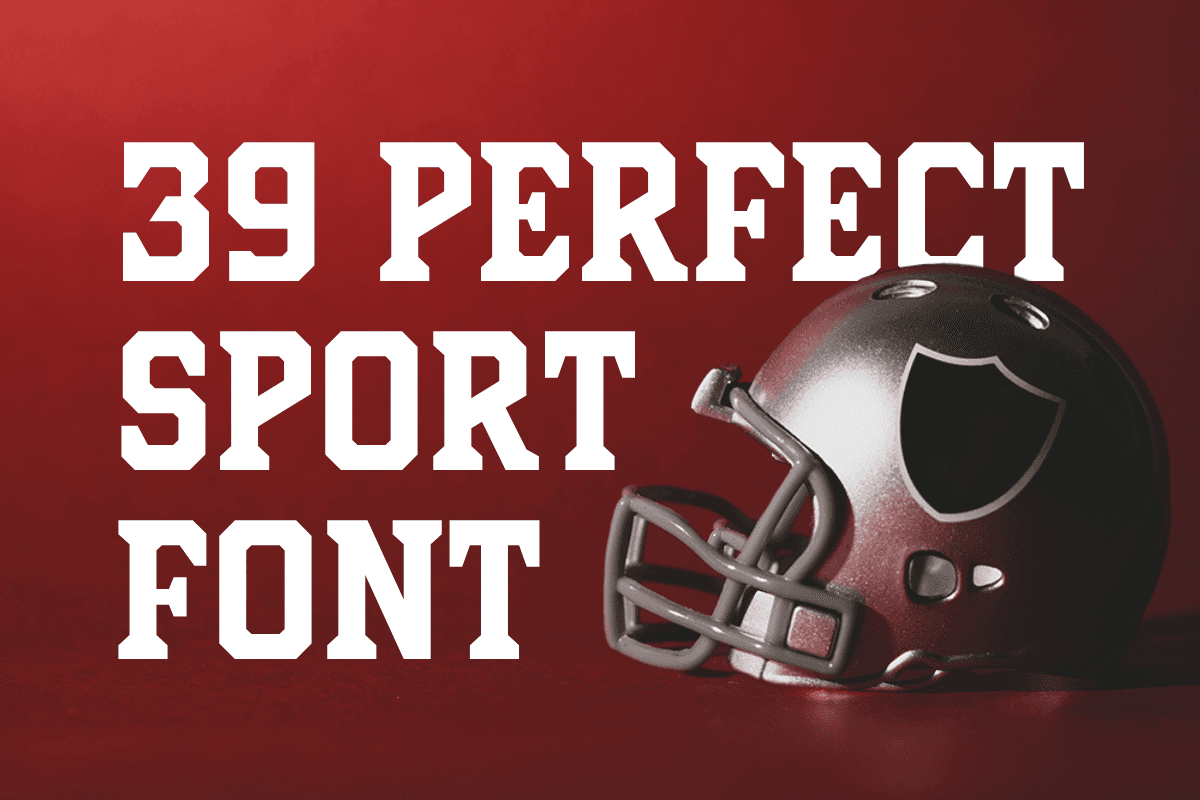
Choosing the perfect sports font is a crucial task. It's not just about aesthetics.
The right font can enhance a team's identity. It can boost fan engagement and even influence merchandise sales.
But how do you choose the perfect sports font?
This guide will help you navigate the world of sports typography. We'll delve into the psychology behind sports fonts. We'll explore their characteristics and their role in branding.
We'll also discuss popular lettering styles. From bold and dynamic to minimalist and sleek, we'll cover them all.
Technical considerations are also important. We'll talk about legibility, scalability, and even legal aspects of font usage.
Choosing the right font involves balancing tradition and modernity. It requires considering the audience and cultural sensitivities. We'll guide you through these considerations.
We'll also discuss the benefits of custom typefaces. We'll provide tips on working with type designers to create a unique font for your team.
Once you've chosen your font, implementing it is the next step. We'll discuss how to maintain consistency across branding materials and how to test your font's effectiveness.
Finally, we'll review some notable sports fonts. We'll also provide resources on where to find and license these fonts.
The future of sports lettering design is exciting. With the rise of technology and innovation, the possibilities are endless.
So, whether you're a sports team manager, a graphic designer, or just a sports enthusiast, this guide is for you. Let's dive into the world of sports lettering fonts.
39 Best Sport Fonts
Avega Sport Font (TTF, OTF, WOFF)
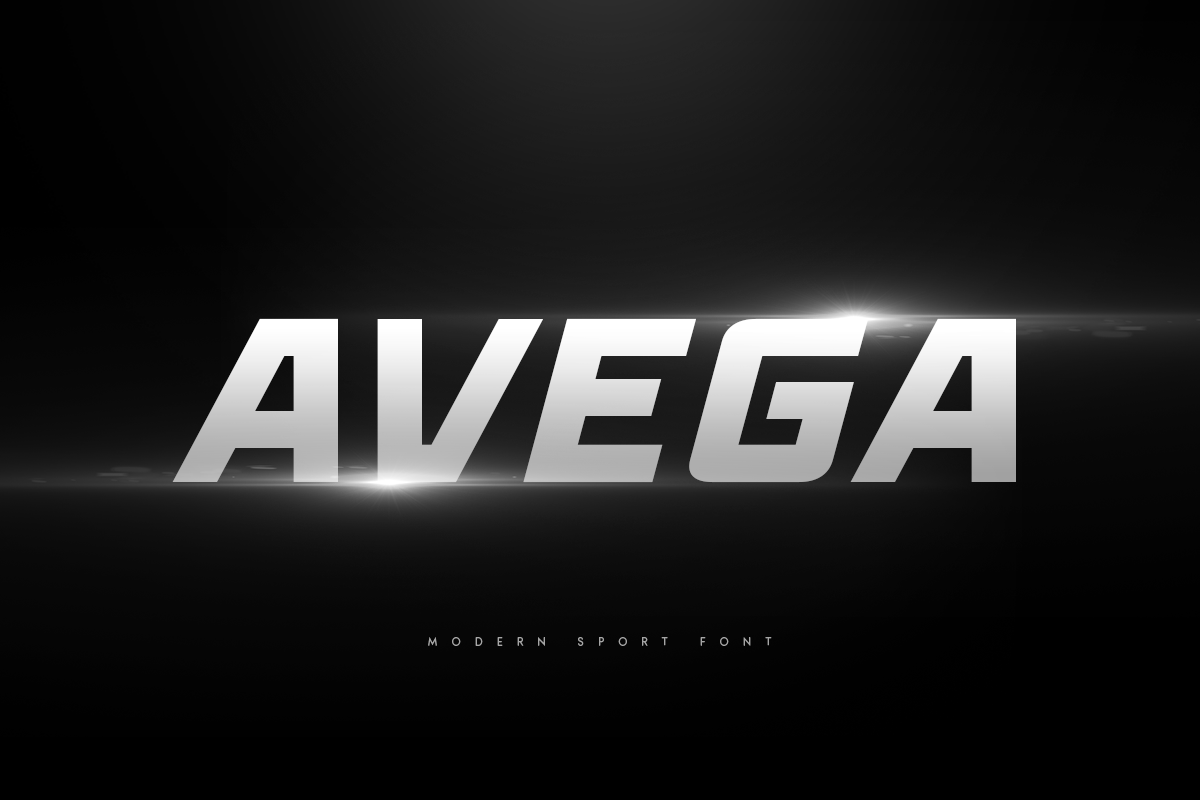
AVEGA is a modern sport font expertly designed for branding, titles, and various typography needs that demand attention. With a range of extra alternative styles, AVEGA ensures your designs are not only eye-catching but also memorable, allowing them to stand out in any context. This font is the perfect addition to your toolkit when creating dynamic headlines and visual statements for themes such as sports, technology, action, and fighting.
Crafted with a bold action style, AVEGA embodies a contemporary feel that brings a sense of energy and excitement to your projects. Whether you're crafting promotional materials, eye-catching social media graphics, or compelling advertisements, this font provides the versatility to express your unique vision effectively. Its modern aesthetic and powerful presence guarantee that your messages will resonate with your audience, showcasing clarity and impact.
With AVEGA, you can embrace creativity and innovation effortlessly. The font's stylish yet robust design makes it easy to integrate into various media forms, ensuring that your typography shines in both print and digital formats. Elevate your design projects with this striking font, and enjoy the process of bringing your ideas to life with a tool that supports your creative expression.
Fantasy Sport Font (TTF, OTF, FF)
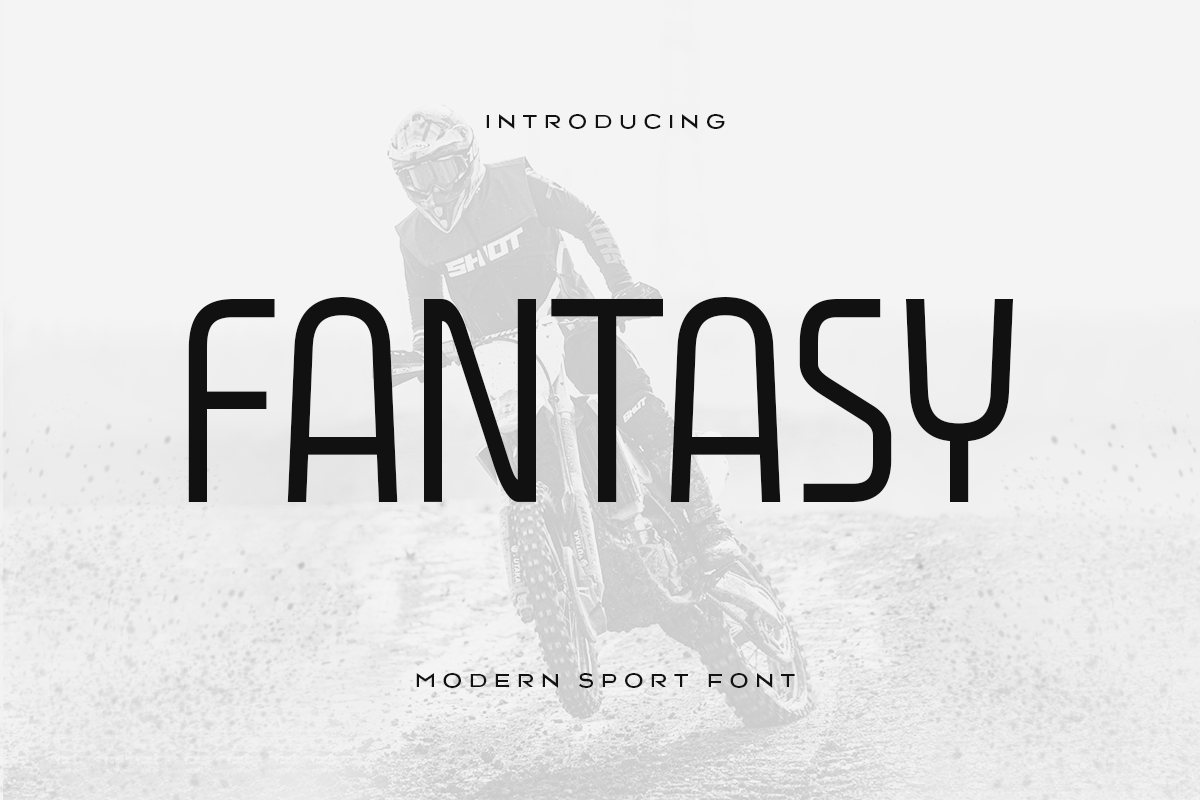
Fantasy is a modern sport font that is perfect for technology, sports, racing, and action design projects. This new sans-serif typeface has been specially created for headlines, titles, and any typography needs that require a striking presence. With its unique design, Fantasy adds a much-needed variation to your projects, ensuring they stand out and grab attention.
Ideal for adding your personal style and enhancing your headline overview, this font shines in applications that demand clarity and impact. Crafted with a futuristic style and modern aesthetic, Fantasy infuses your work with a sense of innovation, making it an excellent choice for contemporary themes.
Whether you're designing promotional materials, dynamic digital graphics, or compelling event posters, Fantasy is the perfect tool to effectively communicate your ideas. Its bold and sleek appearance ensures that your headlines will not just attract attention but also create a lasting impression on your audience. This font is particularly well-suited for racing events, technology launches, and any project that embodies action and excitement.
Racing Sport Font (TTF, OTF, WOFF)
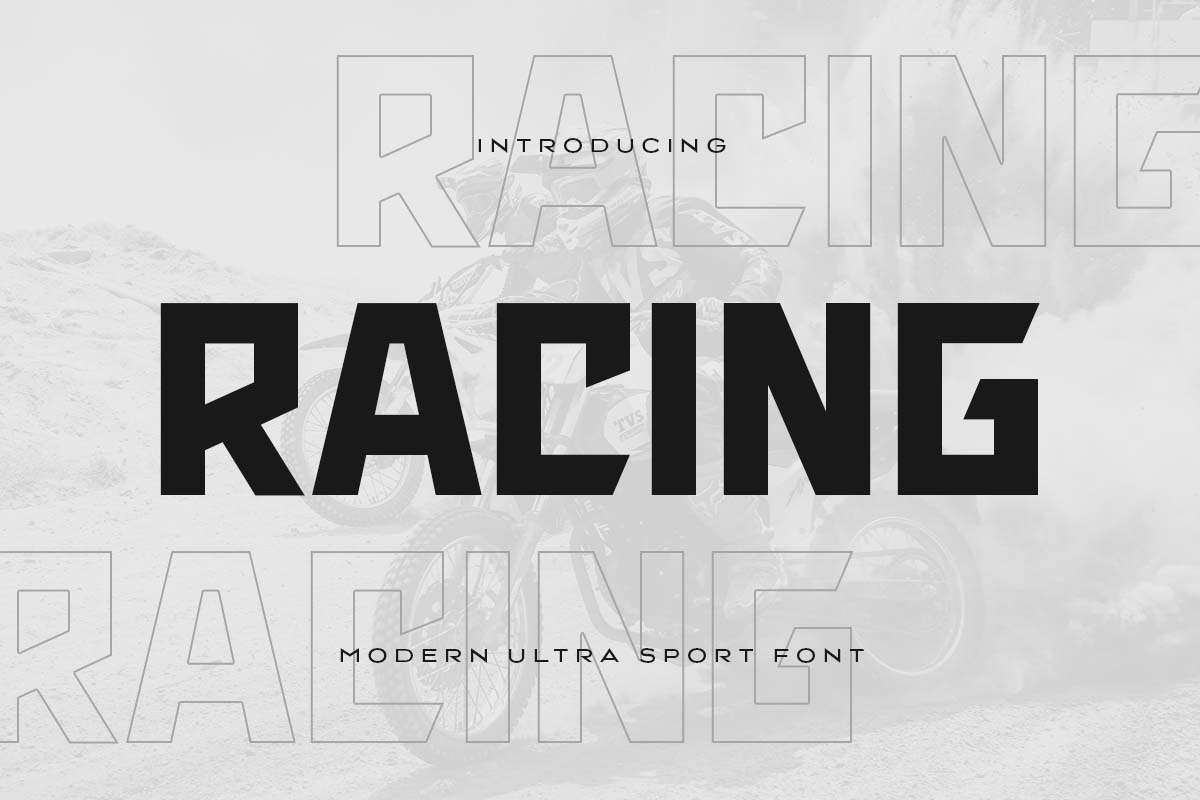
Racing is a modern ultra sport font specifically designed for branding, titles, and standout typography in sports and action contexts. This font excels in adding a distinctive touch to your designs, making it ideal for themes related to sports, technology, action, and fighting. With its unique design, Racing allows you to incorporate your personal style and create impactful headlines that resonate with your audience.
Crafted with a bold action style and a contemporary aesthetic, Racing embodies a sense of energy and dynamism that is perfect for intense projects. Whether you’re developing promotional materials, eye-catching graphics, or engaging advertisements, this font provides the versatility and visual appeal needed to bring your ideas to life.
Racing’s strong and modern feel enhances any project, ensuring that your messages are conveyed with clarity and confidence. The font is particularly suited for applications that demand attention, allowing your core concepts to shine through effortlessly.
Engine Sport Font (TTF, OTF, WOFF)
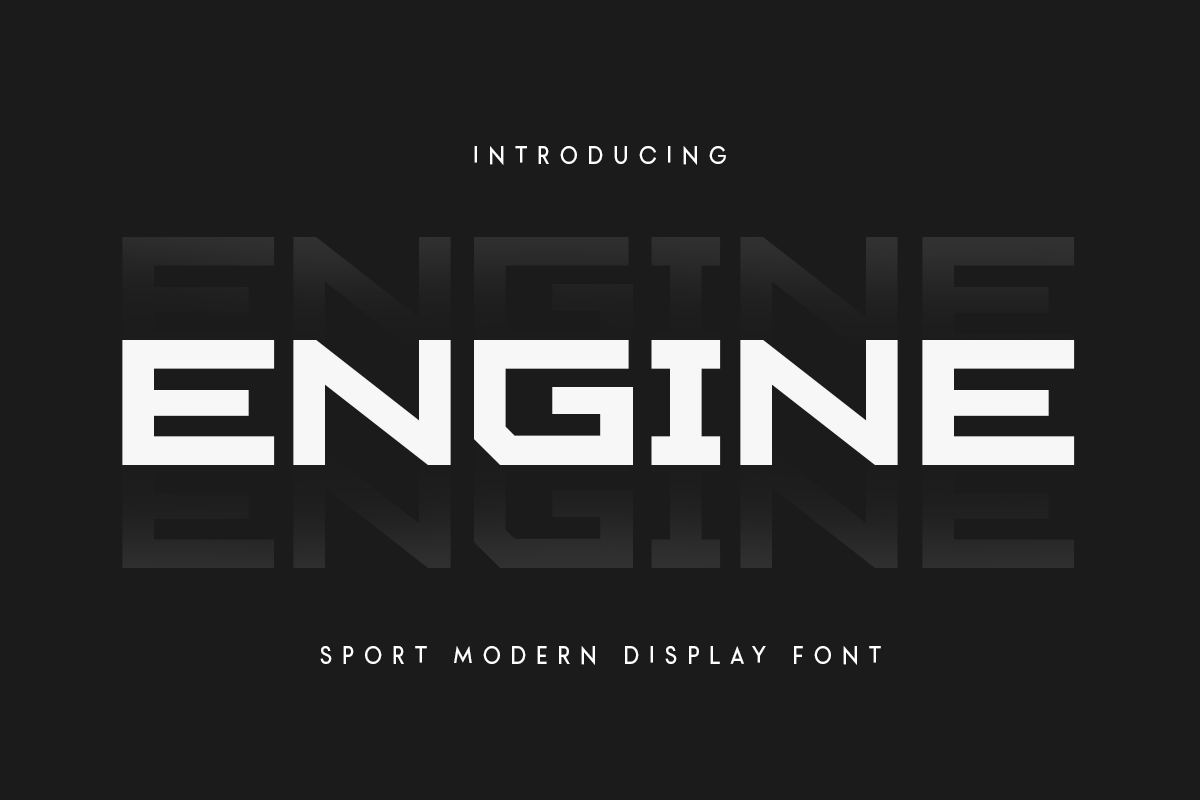
Engine is a modern sport font designed specifically for branding, titles, and standout typography tailored for sports and action. This versatile typeface is perfect for enhancing your style and creating powerful headlines across various themes such as sports, technology, action, and fighting.
With a focus on bold, action-oriented design, Engine captures a sense of energy and excitement, making it an ideal choice for projects that need to convey strength and dynamism. Whether you’re developing promotional materials, engaging social media graphics, or impactful advertisements, this font offers the visual appeal needed to grab attention and communicate your message effectively.
Engine’s sleek and contemporary aesthetic ensures that your designs will stand out, providing clarity and confidence in every application. It is crafted for those who want their ideas to leap off the page or screen, making it indispensable for conveying high-energy concepts.
Slam Dunk Sport Font (TTF, OTF, WOFF)
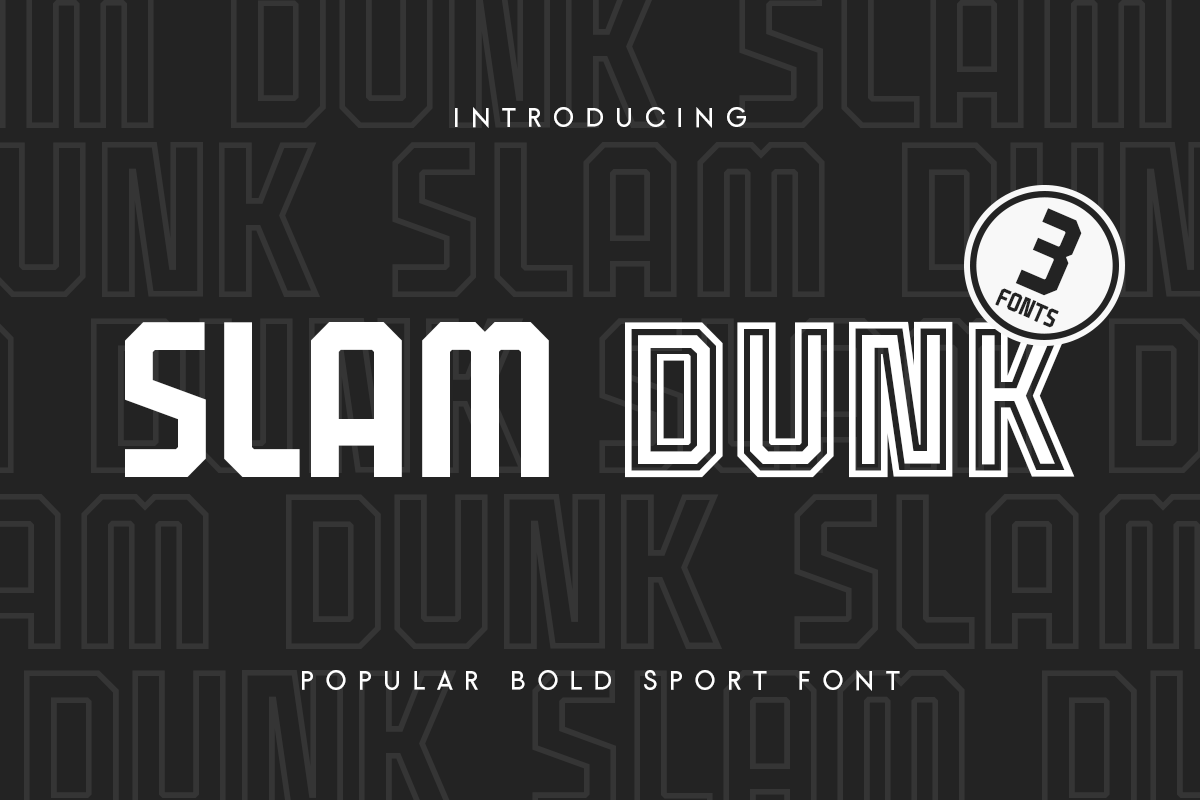
Slam Dunk is a bold and popular sport font meticulously crafted for branding, titles, and striking typography that stands out in sports and action contexts. This versatile typeface is ideal for enhancing your style and creating impactful headlines across various themes, including sports, technology, action, and fighting.
Designed with a focus on boldness and energy, Slam Dunk captures the essence of action and movement, making it perfect for projects that require a dynamic visual presence. Whether you are designing promotional materials, engaging graphics for social media, or powerful advertisements, this font provides the eye-catching appeal you need to make your messages resonate.
Slam Dunk’s modern, assertive aesthetic ensures that your designs not only grab attention but also communicate your ideas with clarity and urgency. Each letter has been crafted for a high-impact look, ensuring that your brand stands out in a competitive landscape.
Holigan Sport Font (TTF, OTF, WOFF)
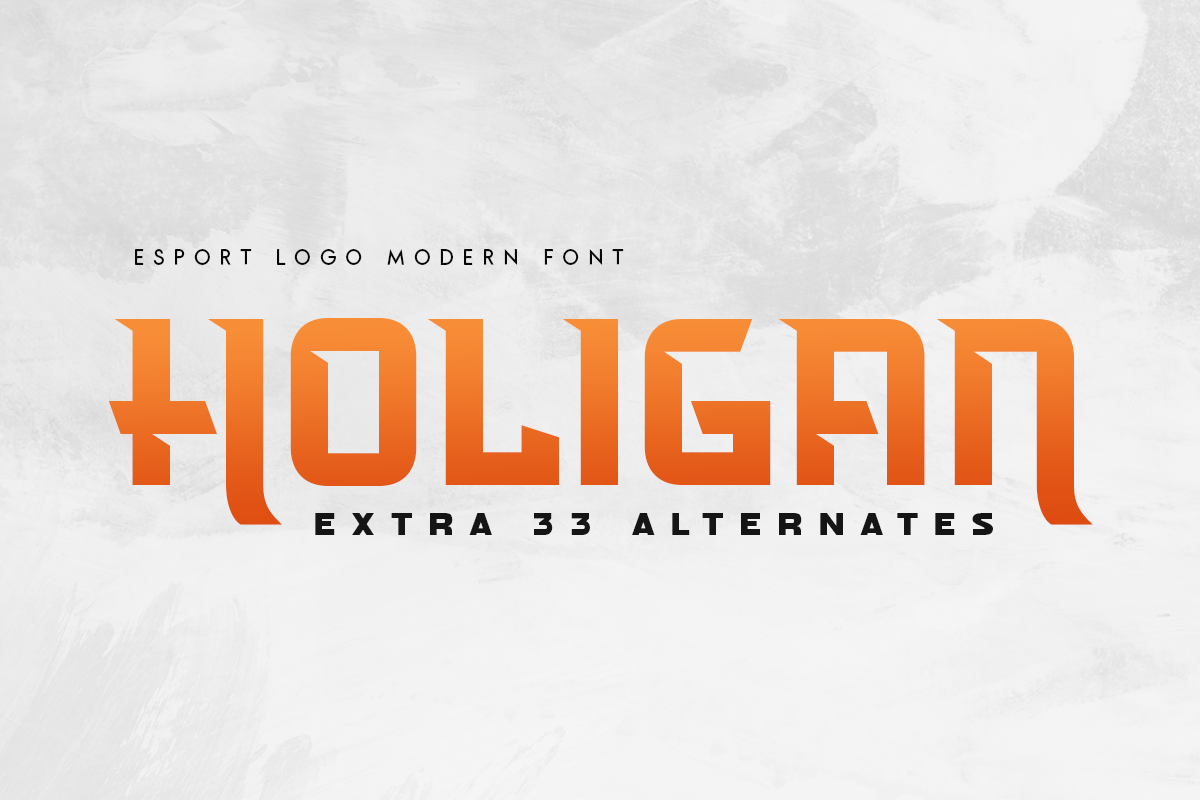
Holigan is a modern sport font specifically designed for branding, titles, and standout typography needs. With its unique and bold style, Holigan adds a dynamic touch to any design project, making it perfect for sports, technology, action, and fighting themes. This font showcases extra alternative styles that enhance your creativity and ensure your designs are memorable and impactful.
Crafted with a focus on bold action aesthetics, Holigan conveys a sense of energy and excitement, ideal for projects that demand attention. Whether you're creating promotional materials, eye-catching headlines, or engaging graphics, this font provides the versatility and visual appeal necessary to effectively communicate your ideas. Its modern design ensures that your text not only captures interest but also clearly conveys your message.
Holigan allows you to incorporate your personal style effortlessly, making it easy to stand out in competitive environments. As you explore the various alternative styles, you can tailor your typography to fit any project requirement, enhancing your creative expression. Enjoy the process of bringing your ideas to life with Holigan, allowing this striking font to be at the forefront of your design work.
Soccer Sport Font (TTF, OTF, WOFF)
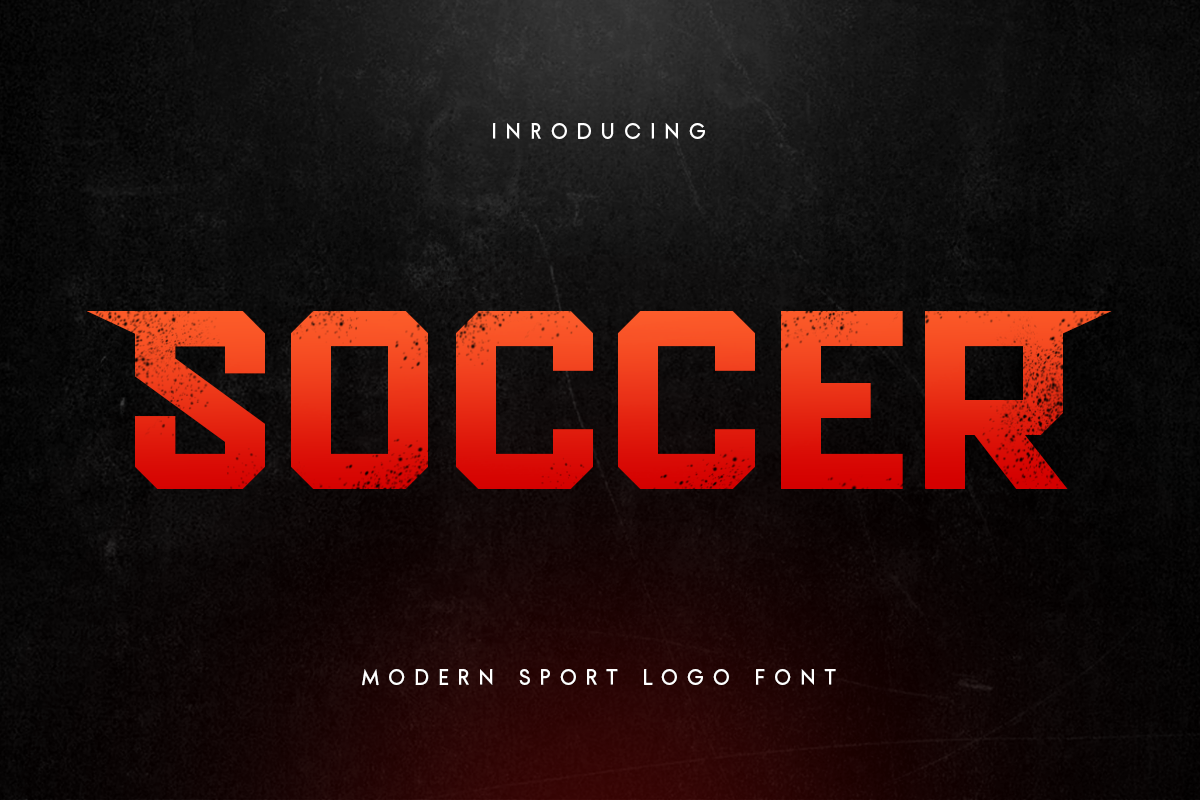
Soccer is a modern sport logo font specifically designed for creating logos, titles, and standout typography in sports and action contexts. This font is ideal for enhancing your branding and adding a dynamic flair to your designs, making it perfect for themes related to sports, technology, action, and fighting.
Crafted with an emphasis on boldness and modern aesthetics, Soccer embodies the energy and excitement of athletic competition. It’s designed to draw attention and ensure your headlines and logos effectively communicate your message. Whether you’re working on promotional materials, branding for sports teams, or dynamic graphic designs, this font provides the versatility to bring your ideas to life.
Specially made for those who want to convey strength and action, Soccer offers an engaging visual experience that resonates with audiences. Its modern design not only captures interest but also allows for a clear presentation of your concepts, making it suitable for a variety of applications.
Kyoto Sport Font (TTF, OTF, WOFF)
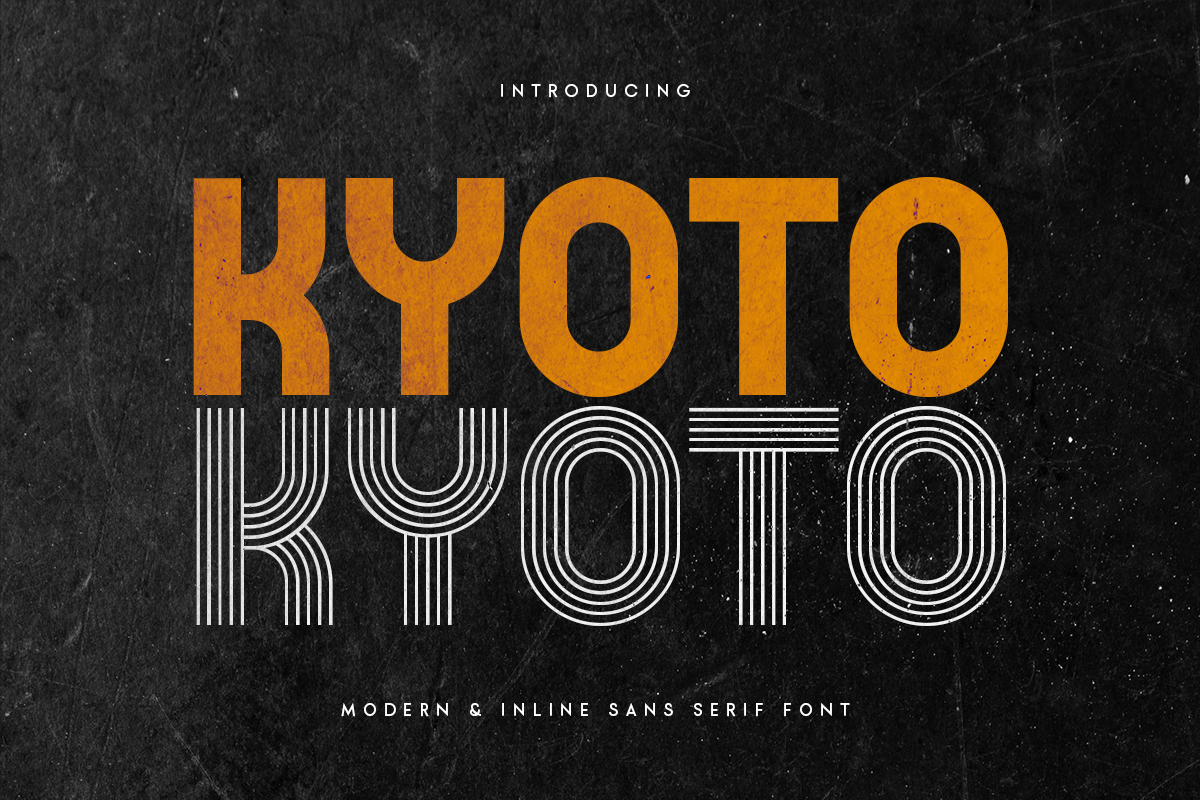
Kyoto is a modern sans serif display font uniquely crafted to meet contemporary design needs. This new display font features an unconventional style that is perfect for unique branding purposes, offering a distinctive flair that sets your projects apart. With its distinct character, Kyoto adds significant value to your brand, making it a great choice for those looking to enhance their visual identity.
Ideal for designers and product owners seeking to create memorable and eye-catching designs, Kyoto provides an innovative solution to elevate your projects. The font's unusual style embraces an urban aesthetic, making it suitable for various applications, including logos, advertisements, and any project that requires a modern touch.
Kyoto's design is not only visually appealing but also versatile, enabling it to adapt seamlessly to different contexts. Whether you are working on branding for a trendy startup, designing promotional materials, or creating social media graphics, this font enhances your overall design while ensuring clarity and impact.
Jaguar Sport Font (TTF, OTF, WOFF)
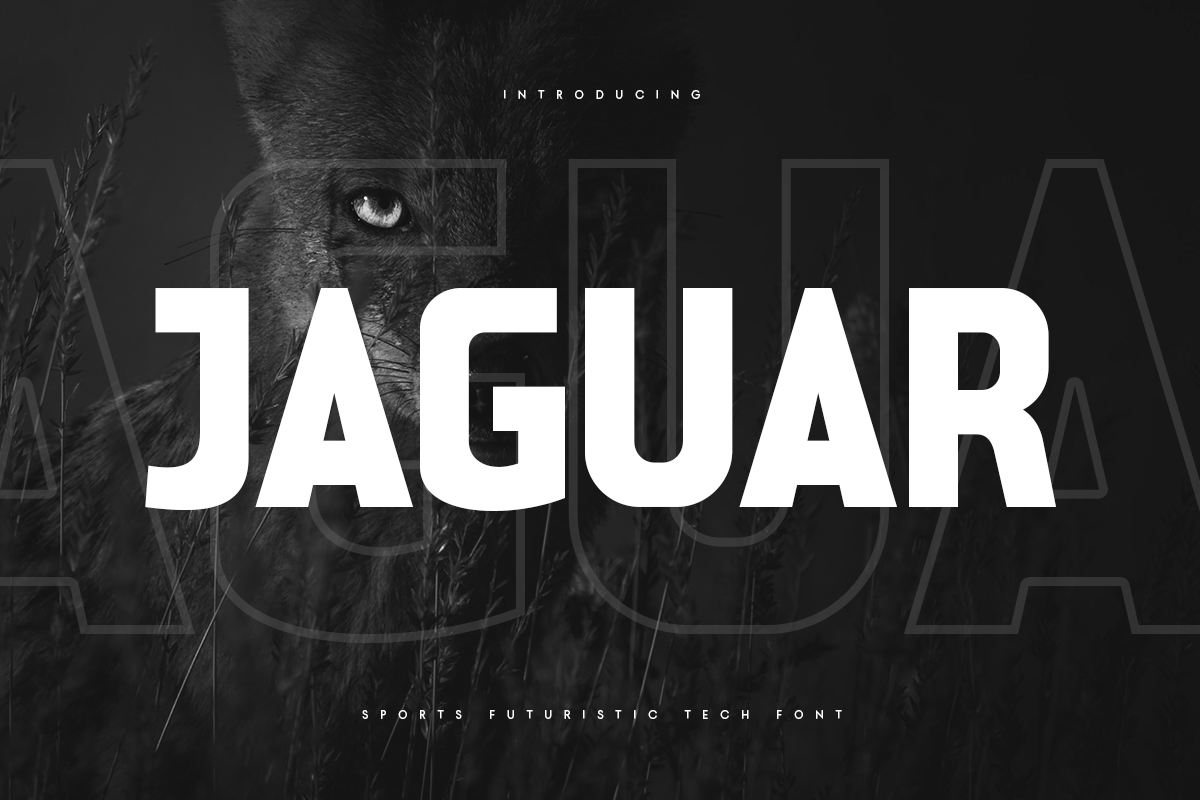
Jaguar is a sports futuristic tech font uniquely crafted for contemporary design needs in both sports and technology. This modern font is specifically designed to cater to the evolving requirements of branding in today's competitive market, featuring a sleek, futuristic style that enhances the appeal of any project. With its distinctive character, Jaguar is poised to elevate your brand and add significant value to your visual identity.
Ideal for designers and product owners aiming to create striking and memorable designs, Jaguar provides the perfect solution for those looking to infuse their work with a sporty and unique character. Its sophisticated, modern aesthetic makes it suitable for a range of applications, from branding and promotional materials to digital interfaces and marketing campaigns.
The font's innovative design not only captures attention but also conveys a sense of energy and movement, resonating well with audiences. Whether you're working on logos, advertisements, or sports apparel, Jaguar enables you to create visuals that stand out and reflect a dynamic, tech-forward ethos.
Range Sport Font (TTF, OTF, WOFF)
Range is a modern futuristic sport font designed to bring a stylish and unique flair to your projects. This font features elegant, eye-catching characters that are ideal for sports events. Its versatility allows you to effortlessly combine characters to create various unique shapes in just seconds, making it perfect for creative explorations.
As a bold sans serif font, Range excels in sport branding projects, making it suitable for jerseys, logos, wedding designs, social media posts, advertisements, product packaging, labels, watermarks, and much more. Its high level of legibility ensures that your messages will stand out, whether they’re displayed on a scoreboard or in a promotional flyer.
Range’s futuristic design captures the energy and excitement associated with sports, helping to convey a dynamic image for your brand or project. Because of its stylish and fancy characters, this font adds value and appeal, making it an excellent choice for projects that require a contemporary touch.
Carbon Sport Font (TTF, OTF, WOFF)
Carbon is a modern sport sans serif font that embodies a sleek and futuristic design, featuring stylish and unique characters that are ideal for sports events. This versatile font allows you to easily combine characters to create various variations and distinct shapes in just seconds, making it a powerful tool for any designer.
As a bold sans serif font, Carbon is perfect for a wide array of applications, including sports branding projects, jerseys, logos, wedding designs, social media posts, advertisements, product packaging, and labels. Its high level of legibility ensures that your messages stand out, whether displayed on banners, merchandise, or digital platforms, making it an excellent choice for any project that demands clarity and visual impact.
The contemporary and dynamic aesthetic of Carbon enhances the overall appeal of your designs, helping to convey a sense of energy and modernity. Whether designing for a sports team, an event, or a brand, this font delivers exceptional visual results that capture attention and communicate effectively.
Speed Sport Font (TTF, OTF, WOFF)
Speed is a futuristic modern sport font featuring stylish and unique characters designed for sports events. This versatile font allows you to easily combine characters to create a variety of eye-catching variations and shapes in just seconds, offering endless creative possibilities.
As a bold sans serif font, Speed is ideal for numerous applications, including sports branding projects, jerseys, logos, wedding designs, social media posts, advertisements, product packaging, and labels. Its high level of legibility ensures that your messages are clear and impactful, whether on promotional materials, merchandise, or digital platforms.
The sleek, modern aesthetic of Speed captures the essence of movement and energy, making it perfect for conveying an active and contemporary vibe. Whether you're designing for a sports team, an event, or a brand, this font enhances the overall appeal of your projects, ensuring they stand out in a competitive landscape.
Speedo Sport Font (TTF, OTF, WOFF)
SPEEDO is a modern racing car font specifically designed for branding, titles, and standout typography in the realms of sports and action. This font is perfect for enhancing your design projects with a dynamic style, making it an excellent choice for themes related to sports, technology, action, and competition.
Crafted with a bold action-oriented aesthetic, SPEEDO captures the energy and excitement of racing, helping to convey a sense of speed and agility. Whether you are creating promotional materials, eye-catching headlines, or graphics for a sporting event, this font will ensure your designs stand out and effectively communicate your ideas.
The modern feel of SPEEDO allows for versatile use across a wide range of applications, including websites, social media posts, advertisements, and product packaging. Its unique characters provide a fresh look that resonates well with audiences, making it ideal for any project that requires a high-impact visual presence.
Champione Sport Font (TTF, OTF, WOFF)
Champione Modern Athletic Sport Font is a contemporary futuristic font designed specifically for the world of sports. With its stylish and unique characters, this font is perfect for creating eye-catching designs for sports events. It offers versatility, allowing you to effortlessly combine characters to generate a variety of unique shapes in seconds, enhancing your creative workflow.
As a bold sans serif font, Champione excels in numerous applications, making it an ideal choice for sport branding projects, jerseys, logos, wedding designs, social media posts, advertisements, product packaging, and labels. Its high level of legibility ensures that your messages are clear and effective across various mediums, whether on digital platforms or printed materials.
The modern design of Champione captures the excitement and energy of athleticism, making it suitable for projects that require a contemporary and dynamic touch. Whether you are promoting a sports team, launching a product, or creating engaging content for social media, this font delivers the impact you need to stand out.
Active Sport Font (TTF, OTF, WOFF)
Active Racing Sport Font is expertly crafted for logo design, action-themed projects, and bold racing graphics. This font is tailored specifically to meet the needs of sports and action designs, making it ideal for titles and standout typography. Its dynamic design enhances any project, adding a stylish flair to themes related to sports, racing, technology, and action-packed events.
Designed with versatility in mind, Active Racing Sport Font includes five alternate styles, allowing you to choose the perfect look for your project. This feature enables you to experiment with various combinations to create a unique identity that captures the essence of your brand or event. The bold action style and modern aesthetic of this font are perfect for conveying energy and excitement, ensuring your designs leave a lasting impression.
Whether you're working on a logo, promotional materials, or social media graphics, Active Racing Sport Font helps communicate your main ideas effectively. Its strong characters ensure high legibility, making it suitable for display in diverse settings, from digital platforms to print.
New Varsity Sport Font (TTF, OTF, WOFF)
New Varsity is a distinctive baseball varsity font family designed specifically to meet the demands of professional and modern varsity baseball applications. This font offers a unique look that enhances your designs, making them more efficient in their visual space. With six unique styles, New Varsity is prepared to add value to your projects, making it an ideal choice for any designer or brand looking to elevate their designs.
Perfect for sports teams, schools, and organizations, New Varsity helps transform ordinary text into eye-catching graphics. Its modern aesthetic and professional appearance are tailored for those needing solutions to create standout designs that capture the spirit of baseball. Each of the six styles adds versatility, allowing you to explore a range of creative expressions and find the perfect match for your needs.
Whether you're designing jerseys, team logos, promotional materials, or event graphics, New Varsity empowers you to develop unlimited variations that fit your vision. Its clean lines and appealing forms ensure that your text is both legible and striking, making your designs memorable and impactful.
Baseball Sport Font (TTF, OTF, WOFF)
Baseball Sport is a versatile sport varsity baseball font family specifically designed for professional and modern headline applications. This font offers a unique appearance that enhances your designs, providing an efficient use of space while attracting attention. With two distinct styles featuring unique shapes, Baseball Sport adds significant value to your creative projects.
Ideal for designers and product owners, this font family helps solve the challenge of creating visually appealing designs that maintain a modern and professional aesthetic. Whether you're crafting headlines for sports events, team branding, or promotional materials, Baseball Sport ensures your text stands out with character and flair.
The two styles are crafted to work seamlessly together, allowing for endless creative variations. You can mix and match the styles to achieve the perfect look that resonates with your target audience. The clean and bold design elements of Baseball Sport are perfect for communicating strength and dynamism, making it suitable for a variety of sports and athletic themes.
Varsity Modern Font (TTF, OTF, WOFF)
Introducing Varsity Modern, a unique font that embodies the vibrant spirit of athletic competition. Drawing inspiration from the bold and dynamic aesthetics of varsity sports, Varsity Modern captures the excitement and energy associated with baseball and a wide range of athletic events. This font is ideal for team branding, sports merchandise, and any varsity-themed projects where a sense of action and tradition is essential.
Varsity Modern merges classic athletic design with a contemporary twist, making it a versatile choice for various applications. Whether you're creating team uniforms, promotional materials, or eye-catching graphics, this font provides a striking visual impact that resonates with fans and players alike. Its strong lines and unique shapes ensure your designs are not only legible but also visually compelling, making a lasting impression.
This font is perfect for conveying a sense of movement and passion, allowing you to capture the essence of competition in your work. Whether you are designing for a school, a professional sports team, or a community event, Varsity Modern helps elevate your brand’s identity by merging tradition with modern appeal.
Brust Sport Font (TTF, OTF, WOFF)
Introducing Brust, a unique font that seamlessly blends the energy of sports with the innovative essence of technology. Crafted specifically for e-sports and varsity-inspired projects, Brust delivers a bold and dynamic presence that elevates your designs and captures attention. Its modern aesthetic makes it an ideal choice for gaming, sports branding, and tech-focused initiatives.
Brust is designed to embody the excitement and competitive spirit found in both traditional sports and the digital gaming world. Whether you're creating graphics for a competitive gaming team, merchandise for a sports brand, or promotional materials for an e-sports event, this versatile font is sure to leave a lasting impression on your audience.
With its strong lines and striking shapes, Brust enhances the visual appeal of your designs while maintaining high legibility. This makes it suitable for a variety of applications, from website headers and social media posts to banners and merchandise. Its contemporary style resonates with tech-savvy consumers, aligning perfectly with modern aesthetics.
Goball Sport Font (TTF, OTF, WOFF)
Goball is a versatile sport script font inspired by the dynamic world of baseball, specifically crafted to meet all your baseball design needs. With its unique blend of classic and contemporary styles, this font is perfect for a wide range of applications, from sports branding to merchandise design. Goball captures the essence of the game, making it an ideal choice for baseball logos, team banners, promotional materials, and much more.
This font is designed to deliver a modern and sporty feel that resonates with fans and athletes alike. Its flowing script is both legible and stylish, allowing you to create eye-catching designs that stand out in any setting. Whether you are working on print materials, apparel, signage, or digital graphics, Goball ensures your projects convey a strong athletic spirit.
What sets Goball apart is its user-friendly design, enabling you to produce unique results effortlessly. It’s suitable for both professional designers and casual creators, making it easy to achieve a polished look without extensive design experience. The font’s versatility allows you to explore various creative expressions while maintaining the authentic feel of baseball.
Sparta Sport Font (TTF, OTF, WOFF)
SPARTA is a futuristic technology sport font specifically designed to enhance logos, film titles, action posters, match designs, and more. This unique typeface brings a bold, eye-catching style to sports, technology, and action-themed projects, making it an ideal choice for creating standout typography that demands attention.
The bold action style of SPARTA adds a modern twist, making your designs pop with energy and excitement. Whether you're working on a sports event poster, an innovative tech brand, or a film project that features intense action sequences, this font elevates your design to new heights. SPARTA is perfect for conveying high energy and modernity in themes related to sports, technology, and even fighting.
Designed with versatility in mind, SPARTA allows you to incorporate your personal style and creative vision into every project. Its futuristic aesthetics facilitate a wide range of applications, from promotional materials to digital platforms, ensuring that your main ideas are communicated clearly and effectively.
Pride Sport Font (TTF, OTF, WOFF)
PRIDE is a modern racing car font specifically designed to enhance branding, titles, and standout typography for sports and action projects. Its unique design captures the thrilling essence of racing, making it perfect for conveying energy and excitement in various applications. Whether you’re creating logos, promotional materials, or engaging titles, PRIDE delivers a striking visual impact that resonates with fans and audiences alike.
This font is ideal for adding a distinct style to your projects, particularly within the realms of sports, technology, action, and fighting themes. Its bold, vibrant characters evoke a sense of speed and dynamism, ensuring your designs stand out in any context, from digital platforms to printed materials.
Crafted with a modern aesthetic in mind, PRIDE allows you to showcase your creative vision while maintaining high legibility. This versatility makes it suitable for a range of projects where clarity and impact are key. Enjoy the process of working with PRIDE as you explore how its bold action style can elevate your designs.
Noland Sport Font (TTF, OTF, WOFF)
Noland is a cutting-edge futuristic font designed specifically for branding, titles, and standout typography in the realms of sports and action. Its sleek, modern aesthetic makes it an ideal choice for projects that require a dynamic visual presence. Whether you’re creating promotional materials, event banners, or engaging headlines, Noland adds a bold flair that captures attention and evokes excitement.
This font is perfectly suited for a variety of themes, including sports, technology, action, and fighting, providing you with the flexibility to convey high-energy concepts effectively. Noland’s unique design allows for a seamless integration of your personal style into any project, ensuring your message is both impactful and memorable.
Crafted with an emphasis on bold action and modernity, Noland invites creativity and experimentation. You can easily use it to highlight key ideas, ensuring that your designs stand out in any context, whether in digital formats or print media. Its clarity and striking appearance make it a fantastic option for conveying speed, power, and innovation.
Dragger Sport Font (TTF, OTF, WOFF)
Dragger is a modern racing car font meticulously designed for branding, titles, and standout typography in the sports and action genres. With its sleek and energetic design, Dragger is perfect for projects looking to convey speed, excitement, and intensity. This font shines in applications such as promotional materials, event posters, and dynamic titles, ensuring your messages are impactful and engaging.
Perfectly suited for a variety of themes, including sports, technology, action, and fighting, Dragger allows you to express your unique style while enhancing your project’s overall look. Its bold action style and contemporary aesthetics make it an ideal choice for designers seeking to infuse their work with a sense of modernity and excitement.
Crafted specifically to elevate your designs, Dragger is not just about looks; it’s designed for versatility and clarity. You can effectively highlight key phrases and headlines, making it easier for audiences to connect with your content. Whether you’re working on a racing team’s branding, a tech startup’s marketing materials, or an exhilarating sports event’s visuals, Dragger empowers you to bring your ideas to life with flair.
Burnout Sport Font (TTF, OTF, WOFF)
Burnout is a modern racing car font uniquely designed to enhance branding, titles, and dynamic typography for sports and action-oriented projects. With its sleek and powerful design, Burnout is an ideal choice for creating visually striking promotional materials, event posters, and captivating headlines that resonate with audiences and capture the excitement of high-speed racing.
This font perfectly complements themes related to sports, technology, action, and fighting, allowing you to inject your personal style into any project. Its bold and energetic aesthetic ensures that it stands out, making your messages impactful whether you’re working on marketing campaigns, team identities, or event branding.
Crafted with a focus on bold action and contemporary design elements, Burnout elevates your creative endeavors by providing a robust visual tool. Its clarity and unique character shapes make it easy to convey essential information while maintaining a distinctive style. You can easily highlight key ideas and themes, ensuring that your projects communicate their core messages effectively.
Garner Sport Font (TTF, OTF, WOFF)
Garner is a modern racing car font specifically designed to enhance branding, titles, and striking typography for sports and action projects. With its sleek design and dynamic flair, Garner is perfect for crafting engaging promotional materials, eye-catching event posters, and impactful headlines that resonate with your audience and convey the excitement of high-speed racing.
This font excels in various themes such as sports, technology, action, and fighting, making it an ideal choice for any project that seeks to embody energy and vitality. Its bold, contemporary design allows for a seamless blend of aesthetic appeal and practicality, ensuring that your messages stand out and capture attention in any context.
Created with a focus on bold action style, Garner elevates your creative work, providing a powerful visual tool to communicate your ideas effectively. The font’s clean lines and distinctive characters lend clarity to your messages while imparting a modern feel that aligns perfectly with the themes it embodies.
Forecast Sport Font (TTF, OTF, WOFF)
FORECAST is a modern racing car font expertly crafted for branding, titles, and standout typography in sports and action-themed projects. Its dynamic design embodies the excitement and intensity of racing, making it an ideal choice for creating compelling promotional materials, attention-grabbing event posters, and impactful headlines that engage audiences.
This font is perfect for a variety of themes including sports, technology, action, and fighting, allowing you to infuse your unique style into any project. With its bold, contemporary appearance, FORECAST enhances visibility and impact, ensuring that your messaging stands out in every application. Whether you're designing for a racing team, a high-octane event, or a tech-oriented sports initiative, this font reinforces the energy and passion associated with each theme.
Designed with an emphasis on bold action and modern aesthetics, FORECAST serves as a powerful tool in your creative arsenal. Its clean lines and distinctive character shapes provide clarity while conveying a sense of speed and dynamism. This allows you to highlight key ideas effectively, ensuring your projects communicate their core messages with confidence.
Crush Sport Font (TTF, OTF, WOFF)
CRUSH is a modern racing car font specifically designed for branding, titles, and standout typography in sports and action projects. With its sleek and powerful aesthetic, CRUSH is perfect for creating dynamic promotional materials, captivating event posters, and striking headlines that resonate with your audience while embodying the thrill of high-speed racing.
This font is ideal for a diverse range of themes, including sports, technology, action, and fighting, allowing you to infuse your personal style into any project. The bold and contemporary design of CRUSH ensures that your messages are impactful and visually engaging, making it a great choice for marketing campaigns, team identities, and event branding.
Crafted with a focus on bold action style and modern appeal, CRUSH elevates your creative work. Its distinctive character shapes and clean lines not only enhance clarity but also convey speed and intensity. This versatility allows you to highlight essential information effectively, ensuring that your projects communicate their core messages with authority and flair.
Sofast Sport Font (TTF, OTF, WOFF)
Sofast is a modern racing car font meticulously crafted for branding, titles, and standout typography in sports and action projects. With its sleek design and energetic flair, Sofast is the perfect choice for creating dynamic promotional materials, eye-catching event posters, and powerful headlines that effectively engage your audience while capturing the excitement of racing.
This font is remarkably versatile, suiting a wide range of themes, including sports, technology, action, and fighting. Its bold and contemporary aesthetic allows you to seamlessly integrate your unique style into any project, ensuring that your messages are not only impactful but also visually striking. Whether you’re designing for a racing event, a technology-driven sports initiative, or an action-packed entertainment campaign, Sofast enhances every aspect of your design.
Designed with a focus on bold action and modern appeal, Sofast elevates your creative endeavors. Its distinctive character shapes and clean lines provide both clarity and dynamism, allowing you to effectively highlight key ideas and themes. This ensures that your projects communicate their core messages with precision and confidence.
Mobile Sport Font (TTF, OTF, WOFF)
Mobile is a modern racing car font meticulously designed for branding, titles, and standout typography in the realms of sports and action. With its sleek and dynamic design, Mobile is perfect for creating eye-catching promotional materials, engaging event posters, and impactful headlines that connect with your audience while embodying the high-energy spirit of racing.
This versatile font is particularly well-suited for various themes, including sports, technology, action, and fighting, allowing you to infuse your unique style into every project. Its modern and bold aesthetic ensures your messages are not only visually appealing but also memorable. Whether you’re crafting marketing materials for a racing event, developing a tech brand, or designing promotional content for an action-packed film, Mobile enhances your visuals and resonates with viewers.
Created with an emphasis on bold action style and contemporary appeal, Mobile elevates your creative projects. Its distinctive character shapes and clean lines provide clarity and energy, making it easy to showcase essential elements of your design. This empowers you to communicate your core ideas effectively and confidently.
Great Futuristic Sport Font (TTF, OTF, WOFF)
Great Futuristic is a modern techno font specifically designed to meet the needs of technology, modern aesthetics, and futuristic design projects. This font is expertly crafted for branding, titles, and standout typography in the realms of sci-fi and futuristic themes. With its sleek and cutting-edge design, Great Futuristic is perfect for adding a unique touch to logos, promotional materials, and any project that requires an innovative visual approach.
Ideal for a wide range of applications, this font effectively complements themes related to technology, film, space exploration, and futuristic concepts. Its contemporary feel allows you to incorporate your personal style into your designs while ensuring your headlines and key messages are bold and engaging. Whether you are working on a tech startup's branding, a sci-fi movie poster, or promotional content for a futuristic event, Great Futuristic enhances the aesthetic and draws attention.
Designed with modernity in mind, this font showcases clean lines and distinctive characters that convey clarity and sophistication. It allows you to express your main ideas in a visually striking manner, ensuring that your projects stand out in a competitive landscape.
Astro Sport Font (TTF, OTF, WOFF)
Astro is a futuristic sci-fi font specifically designed to meet the demands of modern, technological, and standout typography needs. This font features unique styles that enhance the futuristic aesthetic of your design, making it an excellent choice for a variety of applications. With its distinct character, Astro is ideal for adding flair to projects related to cryptocurrency, technology, film, and other sci-fi themes.
The sleek and innovative design of Astro allows you to effectively incorporate your personal style while ensuring that your headlines and key messages capture attention. Whether you’re working on branding for a tech start-up, designing promotional materials for a sci-fi movie, or creating content for a cryptocurrency platform, this font elevates the visual appeal of your projects and resonates with your audience.
Crafted with a focus on modernity and technological vibes, Astro boasts clean lines and contemporary forms that convey clarity and sophistication. Its design permits you to express your main ideas powerfully and vividly, ensuring that your work stands out in a competitive market.
Pace Sport Font (TTF, OTF, WOFF)
PACE is a modern racing car font meticulously designed for branding, titles, and eye-catching typography in sports and action projects. With its sleek and dynamic aesthetic, PACE serves as the perfect choice for creating compelling promotional materials, striking event posters, and impactful headlines that resonate with your audience, capturing the thrill of high-speed racing.
This versatile font is ideal for a variety of themes, including sports, technology, action, and fighting. Its bold, contemporary design allows you to infuse your unique style into any project, ensuring that your messages are not only visually appealing but also memorable. Whether you’re crafting materials for a racing event, developing a tech-related campaign, or designing promotions for an action-packed film, PACE enhances every aspect of your design.
Emphasizing a bold action style and modern flair, PACE elevates your creative endeavors. Its clean lines and distinctive characters provide clarity and energy, enabling you to effectively showcase essential elements of your design. This ensures that your core messages are communicated with strength and confidence.
Faster Sport Font (TTF, OTF, WOFF)
Faster – Racing Modern Logo Font is a stylish and unique sans serif font designed specifically for modern branding and sport events. With its elegant yet bold characters, this font allows you to create a wide range of variations and unique shapes in just seconds, making it an incredibly versatile choice for any design project.
Ideal for sport branding, Faster can be seamlessly integrated into jerseys, logos, wedding designs, social media posts, advertisements, product packaging, and labels. Its contemporary design ensures a high level of legibility, making it easy for audiences to engage with your message.
The font’s bold features enhance visibility and make it an excellent choice for eye-catching projects that demand attention. Whether you're designing for a sports team, creating promotional materials for a major event, or developing packaging for a new product, Faster provides the flexibility and style required to elevate your designs.
Varien Sport Font (TTF, OTF, WOFF)
Introducing a modern strong display font designed specifically for technology, sports, racing, and action design projects. This new display font is crafted for headlines, titles, and any typography needs that require a standout presentation. With its unique extra outline feature, you can easily create variations and customize your designs to fit your vision perfectly.
The font's bold and contemporary aesthetic makes it an ideal choice for projects where you want to make a strong impact. Whether you are designing promotional materials for an upcoming sports event or creating dynamic visuals for a technology campaign, this font will help you effectively communicate your message with style.
This display font not only excels in aesthetics but also enhances clarity, ensuring that your headlines and titles are easily readable. Its futuristic style is perfect for showcasing contemporary themes, adding a modern feel to your projects while allowing your creativity to shine through.
Rocky Sport Font (TTF, OTF, WOFF)
Rocky is a modern masculine font specifically designed for branding, titles, and any typography needs where stand-out presentation is crucial. With its unique array of alternative styles, this font allows you to create designs that are not only visually striking but also memorable. Rocky is perfect for adding your personal touch and enhancing headline visibility across a variety of themes, including sports, technology, action, and fighting.
The bold action style of Rocky captures the essence of strength and determination, making it an ideal choice for projects that require an impactful visual statement. Whether you’re working on promotional materials for a sports event, developing dynamic content for a technology brand, or crafting graphics for an action-oriented campaign, Rocky enhances the aesthetic and effectively communicates your message.
Designed with modern sensibilities in mind, this font offers clarity and a contemporary feel that can elevate your creative projects. Its versatile nature enables you to experiment with different layouts and styles, ensuring that your main ideas are expressed with confidence and style.
Ozeum Sport Font (TTF, OTF, WOFF)
Ozeum is a cutting-edge font specifically crafted for the gaming and esports arena. Designed with bold and dynamic elements, it embodies the high-energy essence of competitive gaming, ensuring your brand stands out in a crowded market. Whether for team logos, game titles, or streaming graphics, Ozeum delivers powerful visual impact that captivates audiences.
Inspired by the fast-paced world of esports, Ozeum skillfully merges modern design with unique character traits to create a font that is both visually striking and functional. Its distinctive style guarantees that your brand will leave a memorable impression, while its versatile features provide endless possibilities for creative applications across various platforms.
Perfect for any gaming or esports project, Ozeum supports multiple languages and includes all essential characters to meet your design needs. With its OpenType features and comprehensive character set, Ozeum offers the flexibility required to craft compelling visuals that resonate with your target audience.
Fesaty Sport Font (TTF, OTF, WOFF)
FESATY is a sport technology logo font designed to bring a bold, futuristic edge to your projects. Featuring sharp lines and a dynamic structure, it is perfect for branding within the sports, tech, and digital industries. Whether you're crafting logos, creating athletic wear, or designing tech products, FESATY offers a strong, modern aesthetic that effortlessly grabs attention.
Inspired by the fast-paced world of sports and cutting-edge technology, FESATY uniquely combines sleek curves with angular forms to create a high-energy look. Its bold presence makes it an excellent choice for brands aiming to leave a lasting impression with logos that stand out in a competitive landscape.
By choosing FESATY, you elevate your branding strategy to new heights, aligning your designs with the innovative spirit of contemporary sport and technology. This font is specifically crafted for those who embrace a forward-thinking approach and desire to communicate their vision with style and impact.
Monoway Sport Font (TTF, OTF, WOFF)
Monoway is a modern sport condensed font designed to deliver power within a sleek, bold framework. Featuring condensed letterforms and dynamic lines, it’s ideal for athletic branding, sports team logos, and activewear designs. Monoway’s strong, sharp structure ensures maximum visibility, allowing it to stand out in both digital and print media and creating a lasting impact with its commanding presence.
This font is perfect for fast-paced, energetic projects, where a clean and bold aesthetic is essential. Monoway fits seamlessly into a variety of sport-related design work, enhancing not only the visual appeal but also the message behind it. Whether you're crafting a brand identity for a sportswear company, developing an eye-catching team logo, or creating dynamic advertising materials, Monoway’s condensed style infuses your projects with intensity and clarity that captivates audiences.